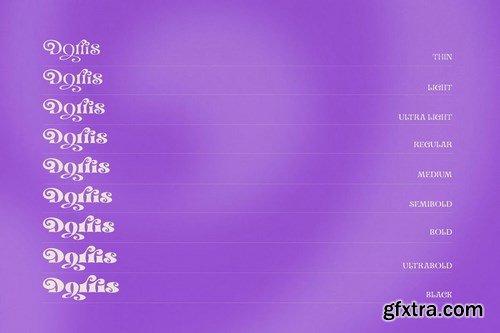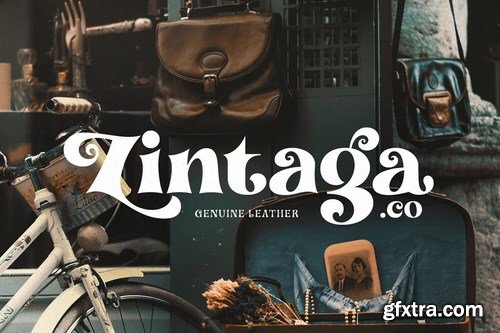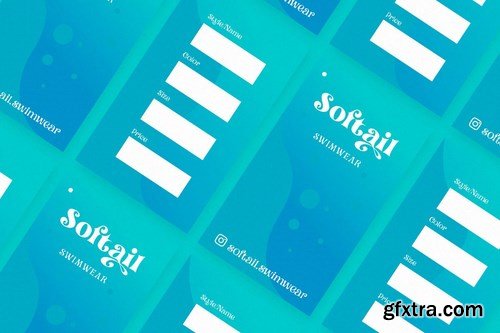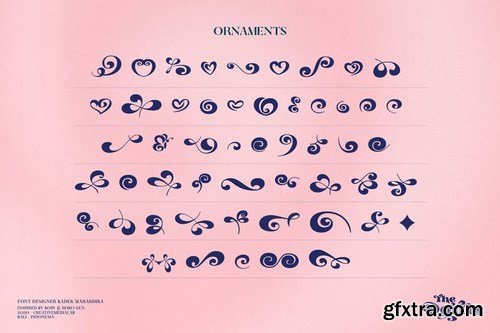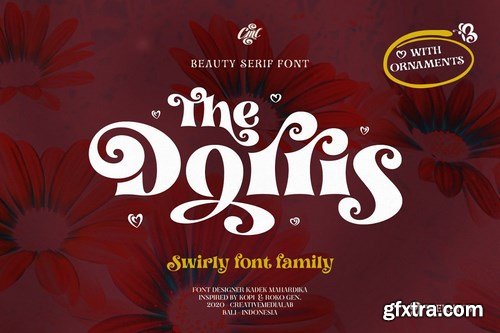
Unique, cute and versatile serif family with alternates and ornaments. Try all capital letters for groovy retro style, or capitalize for a happy, cute and beauty look.
This Family has 9 weights from thin to black with a soft and curly tail that makes this font look funky and fresh. Suitable for use in many design forms, for example, magazines, DIY projects, quotes, ice cream packaging, postcards, logos, vintage look badges, old classic music, the 60s, 70s, 80s era, stickers, label, kids, baby, wedding projects and many more. We recommend using Adobe Programs. to access alternate simply copy and paste the glyph in the pdf alternates character map into your choosen software Adobe Photoshop go to Window - glyphs Adobe Illustrator go to Type - glyphs P A S S W O R D DORRIS3454FR_GFXTRA